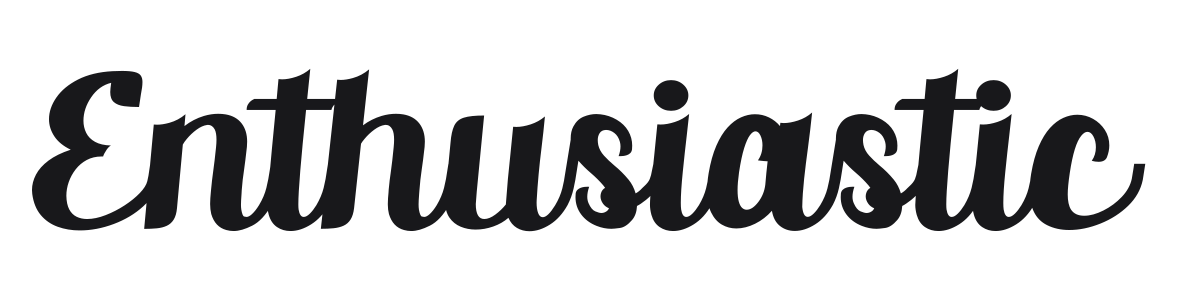
Enthusiastic
Enthusiastic is a bold connected brush script with smooth flowing joins and a confident hand-lettered feel. The thick strokes and rounded terminals keep it warm and approachable without losing energy. It works best at large sizes where the rhythm of the lettering can breathe.